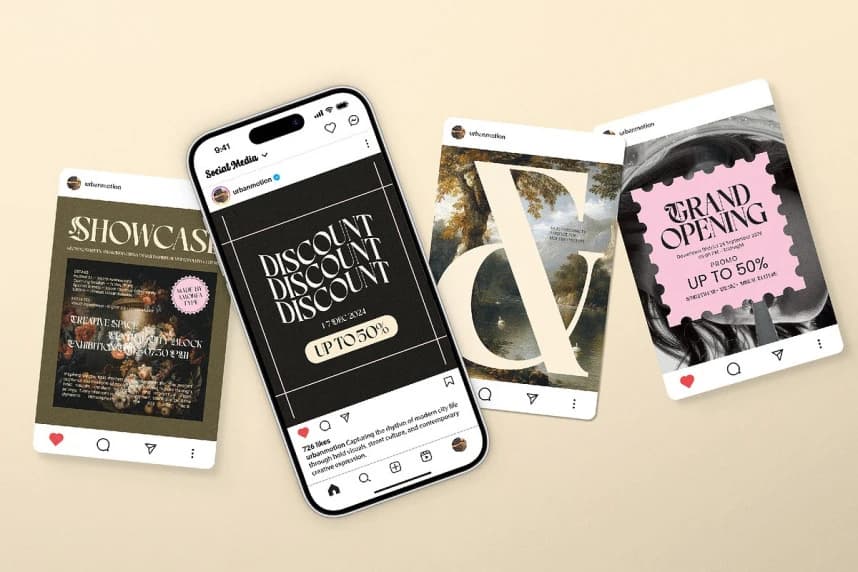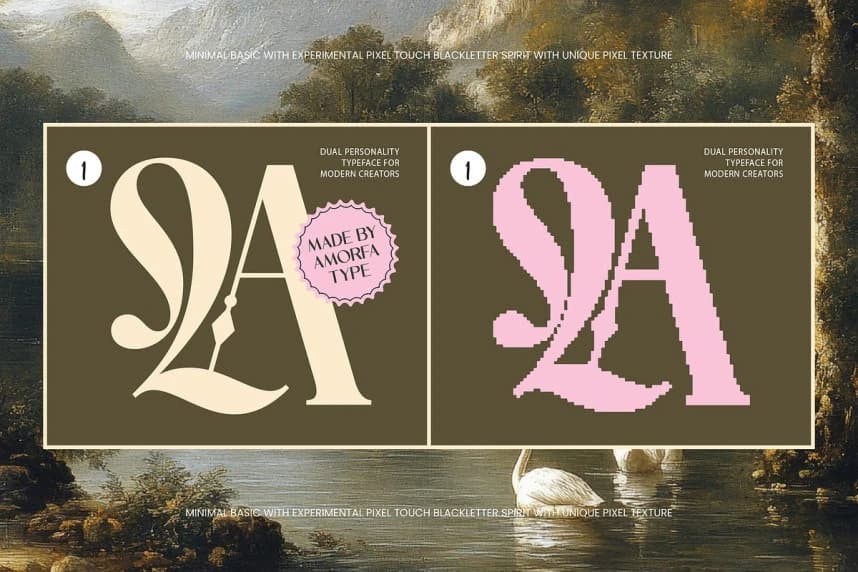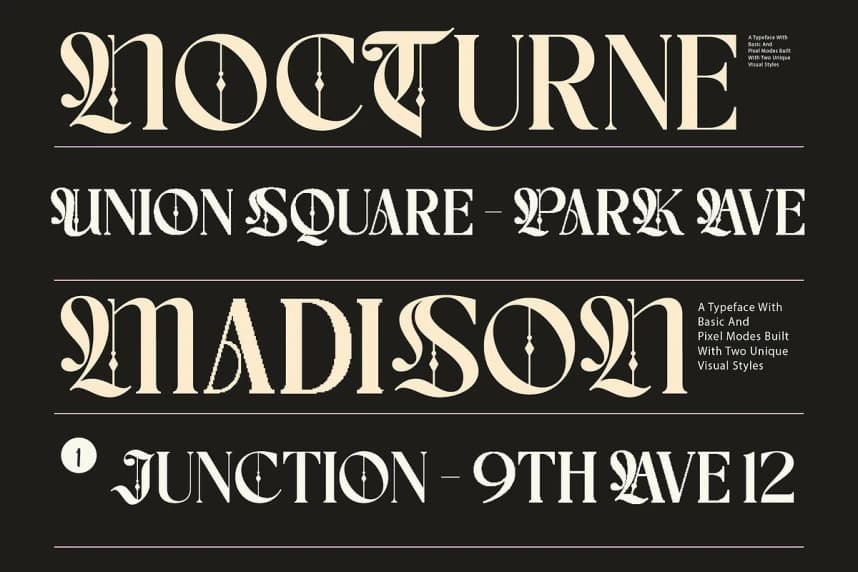
Choire Font
Choire Font is a blackletter pixel font that combines classic gothic aesthetics with retro digital pixel styling. Inspired by medieval blackletter typography and old-school bitmap visuals, this font delivers a bold, unique, and experimental look for modern creative projects.